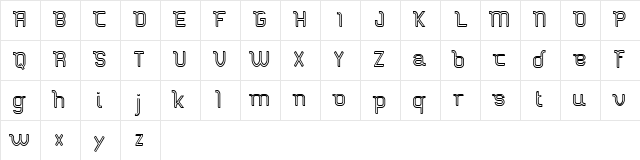
Stucker inline FREE is built around its visual character rather than neutral utility - its distinctive forms are designed to make an impression at display sizes.
Font Pairing: Pair with a clean neutral sans-serif for body copy to let Stucker inline FREE's character lead without overwhelming the composition.
Pro Tip: Use Stucker inline FREE exclusively at display sizes - it was designed to be seen, not read at length. Let a neutral companion handle body copy.